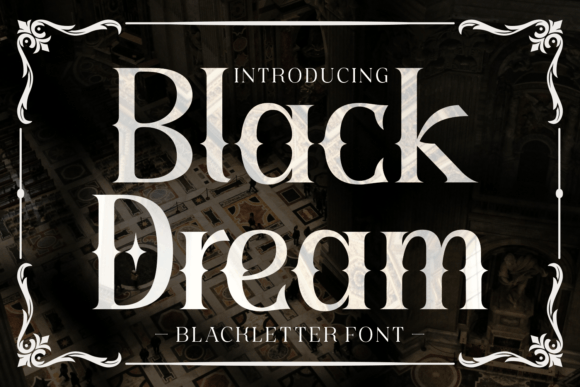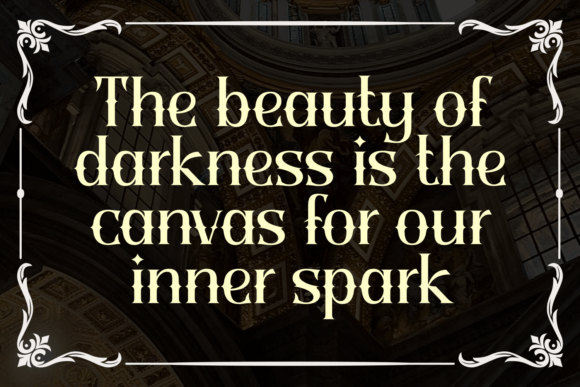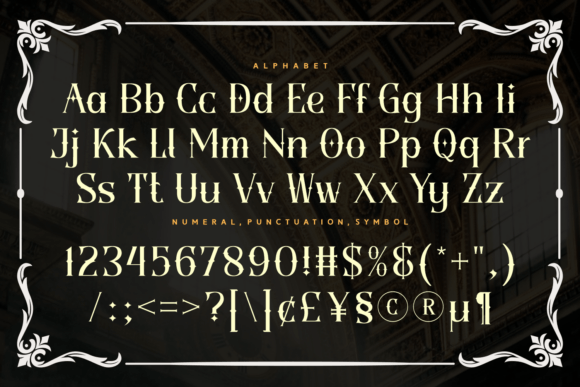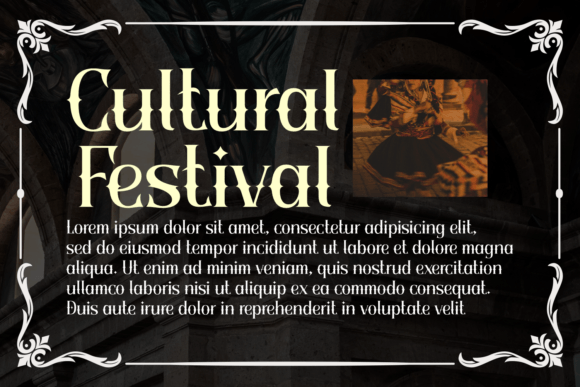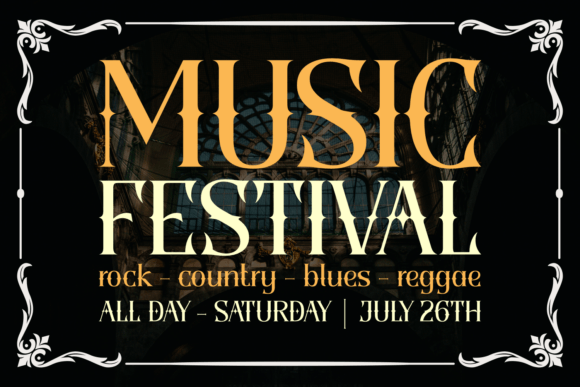
Black Dream is a striking blackletter font, blending gothic elegance with modern flair. Its sharp edges and intricate details evoke medieval manuscripts, perfect for creating dramatic logos, posters, and branding. Ideal for projects needing bold, expressive typography with a touch of vintage sophistication.
Black Dream Font